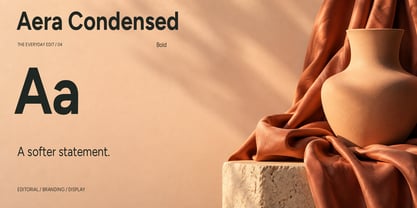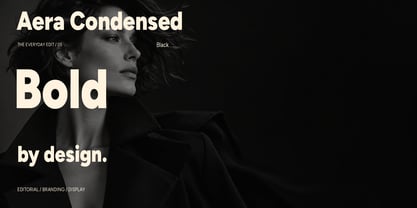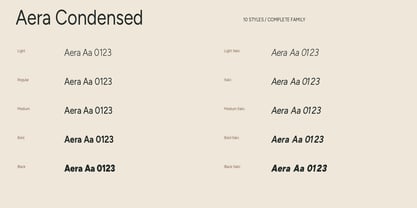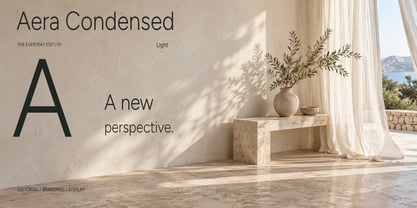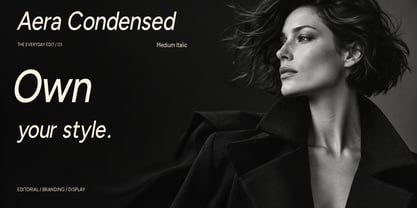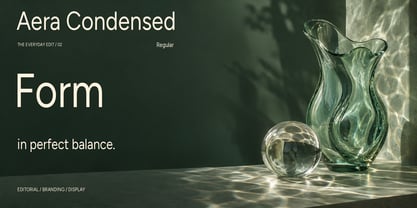
Aera Condensed
by MD-Type
The Aera Condensed Font Family was designed by Mehmet Dogan and published by MD-Type. Aera Condensed contains 10 styles and family package options. More about this family
Aera Condensed is the compact companion to the Aera typeface family. It includes 10 styles, ranging from Light to Black with matching italics.
The condensed proportions allow designers to create strong headlines and expressive layouts while using less horizontal space. The family combines a clean contemporary structure with a confident editorial voice, making it suitable for magazine covers, posters, packaging, branding and advertising.
Aera Condensed works especially well in headlines, stacked typography, narrow columns and compact display compositions. Its coordinated weights provide a consistent visual system from delicate captions to powerful large-scale statements.